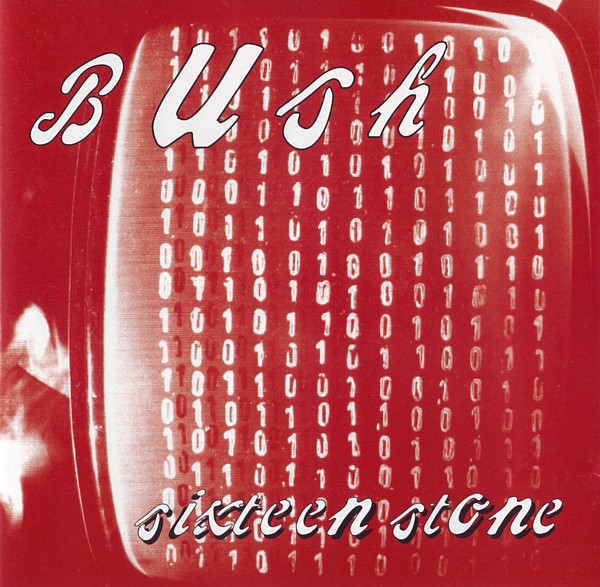
Sixteen Stone (Bush) Font
Fonts in UseSixteen Stone is the debut album by British rock band Bush, released in 1994. It features hit singles such as "Comedown" and "Glycerine" and is widely considered a landmark album of the grunge and post-grunge era.
The psychedelic-style font on the album cover resembles Leucadia Gap, a font released by Garage Fonts in 1992.